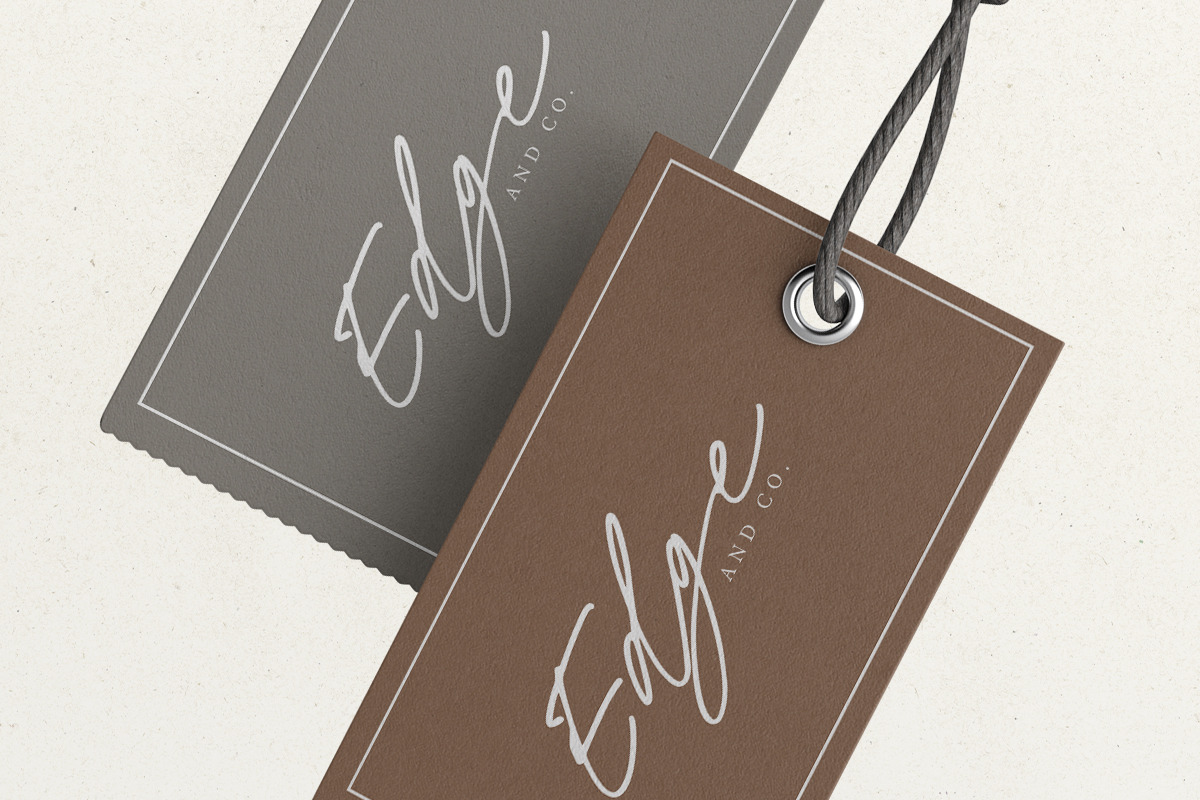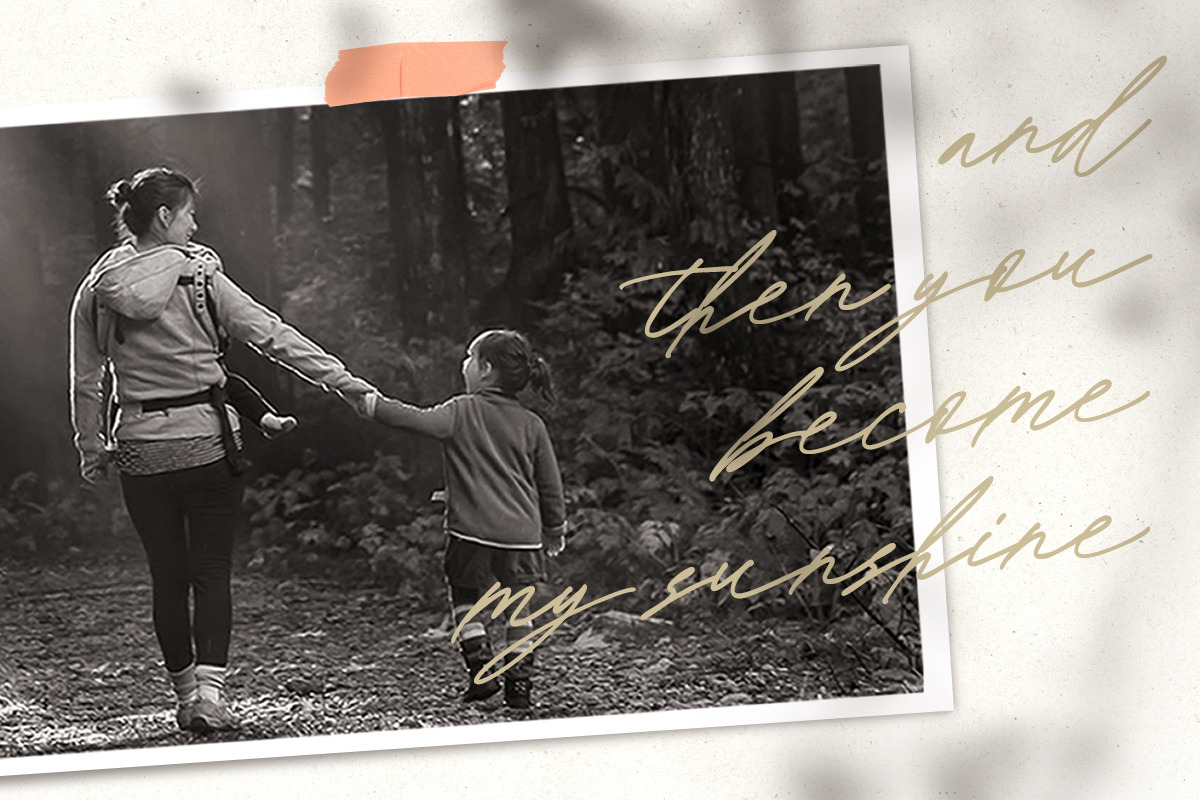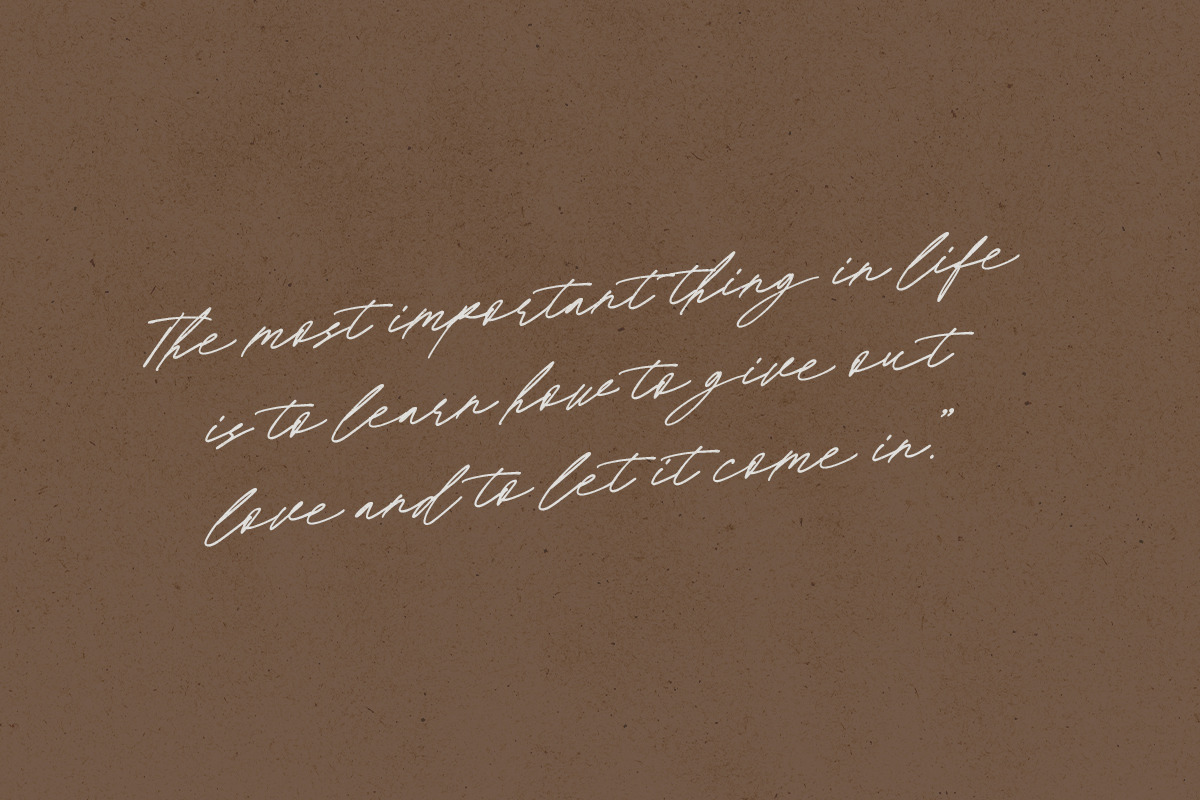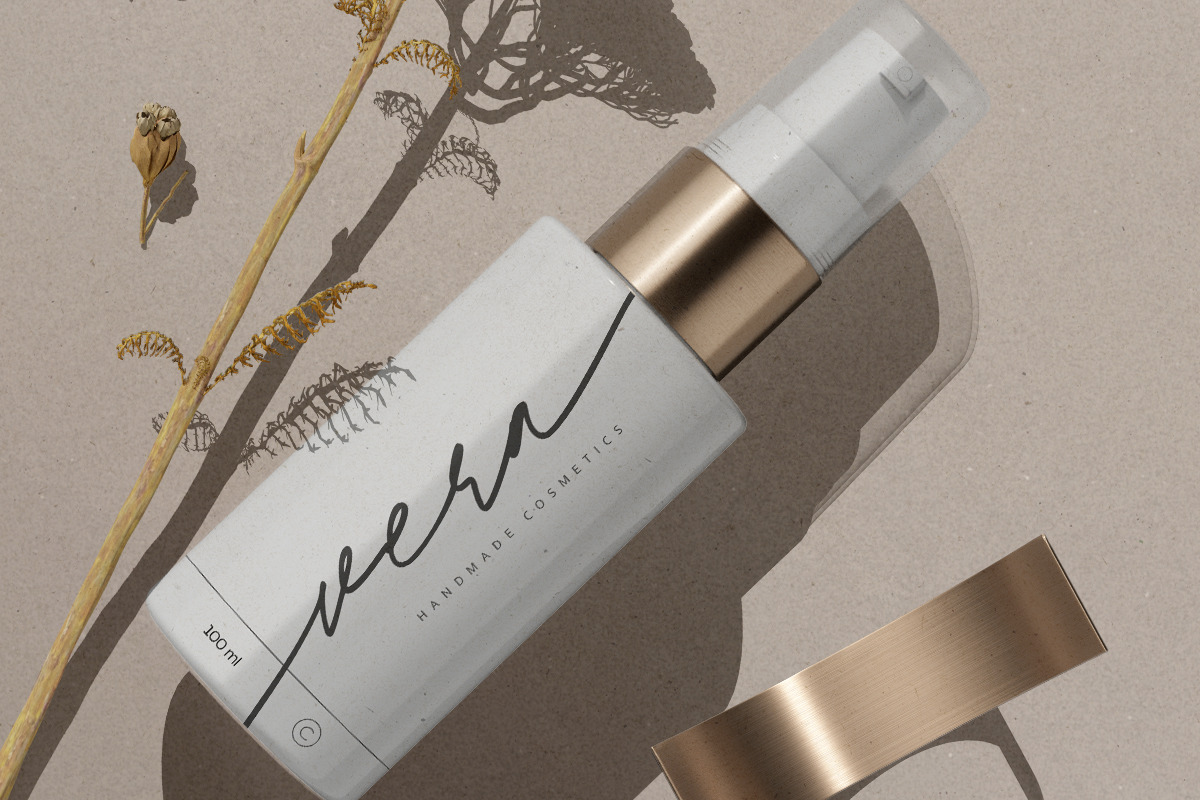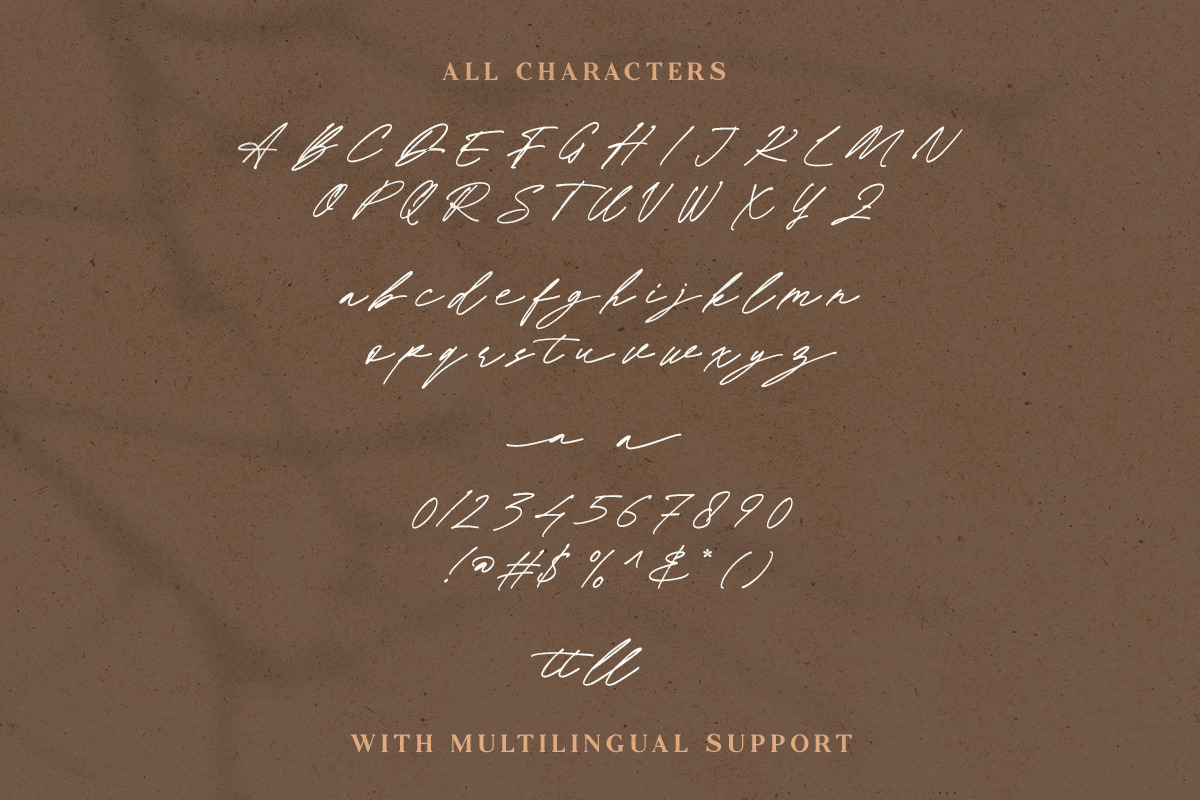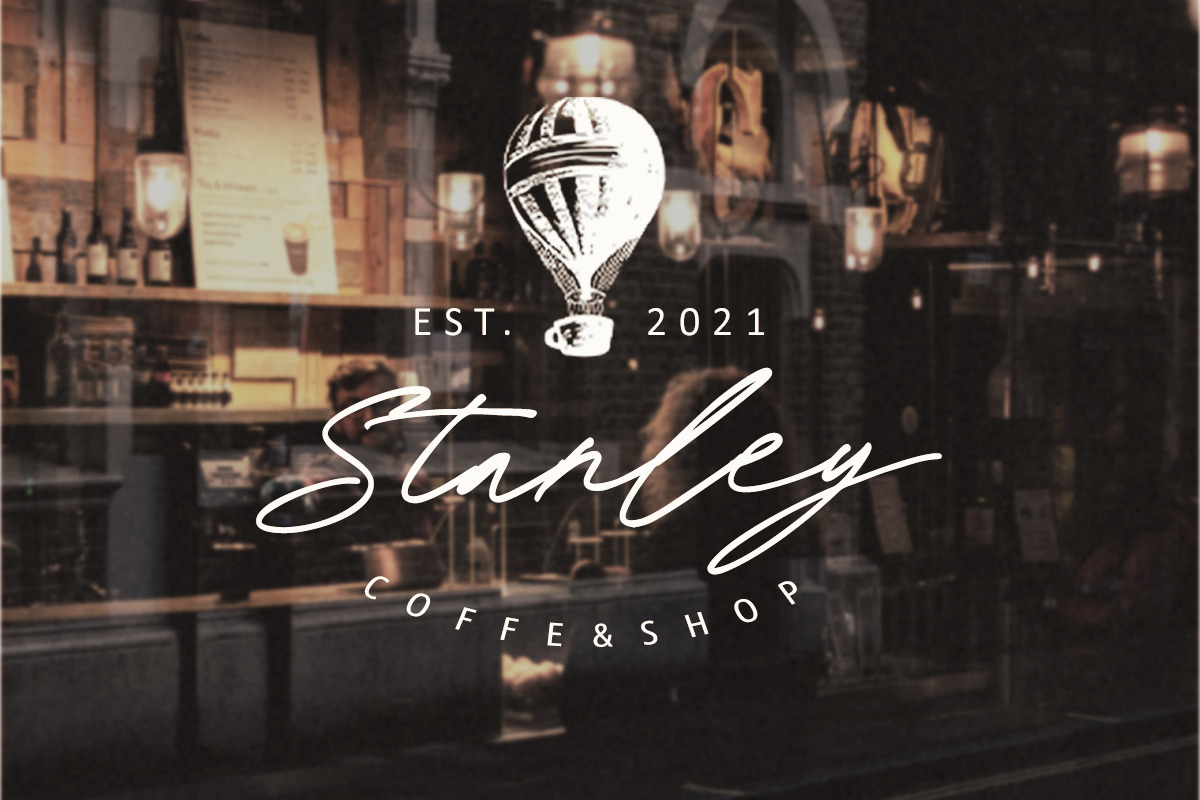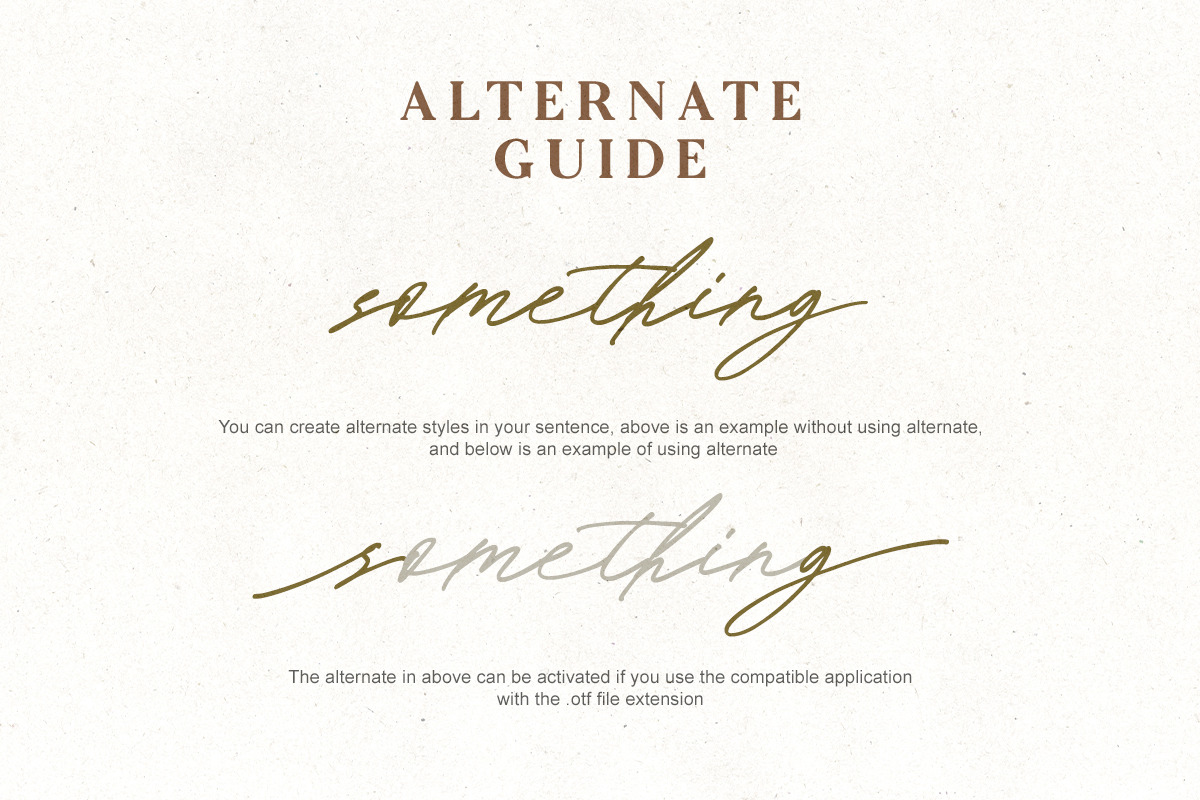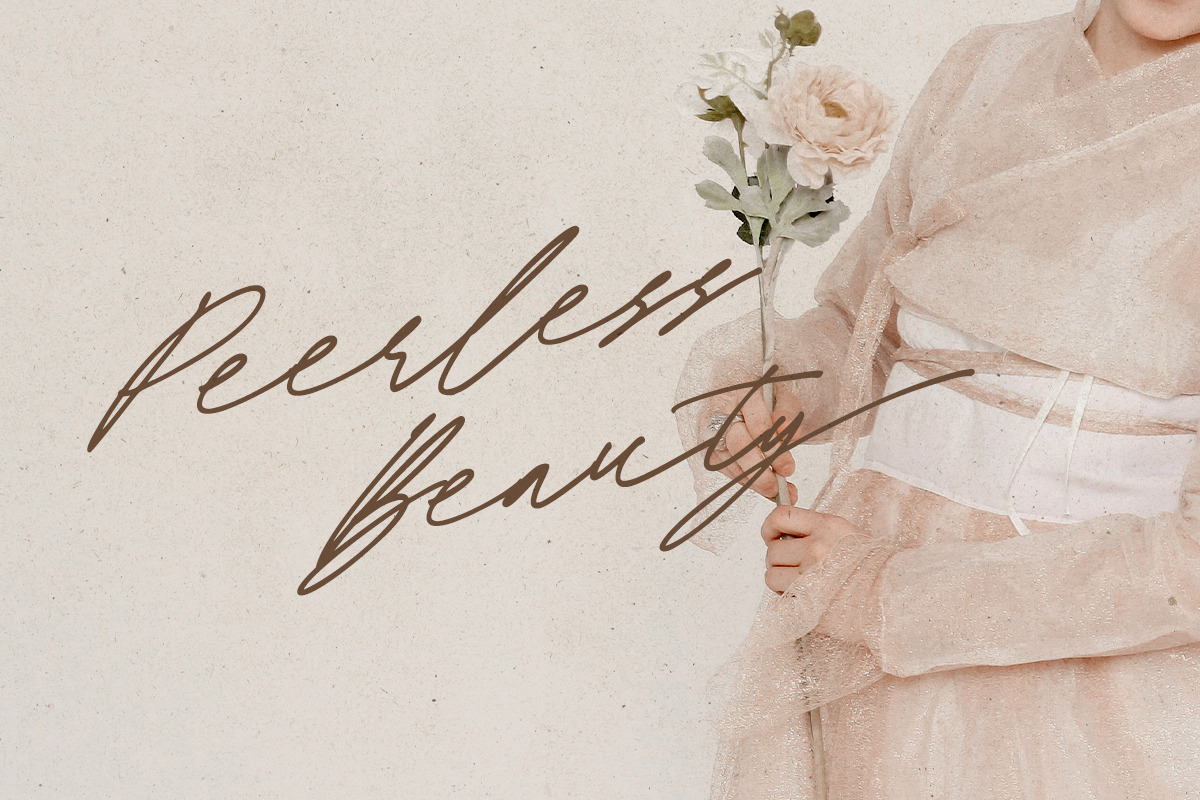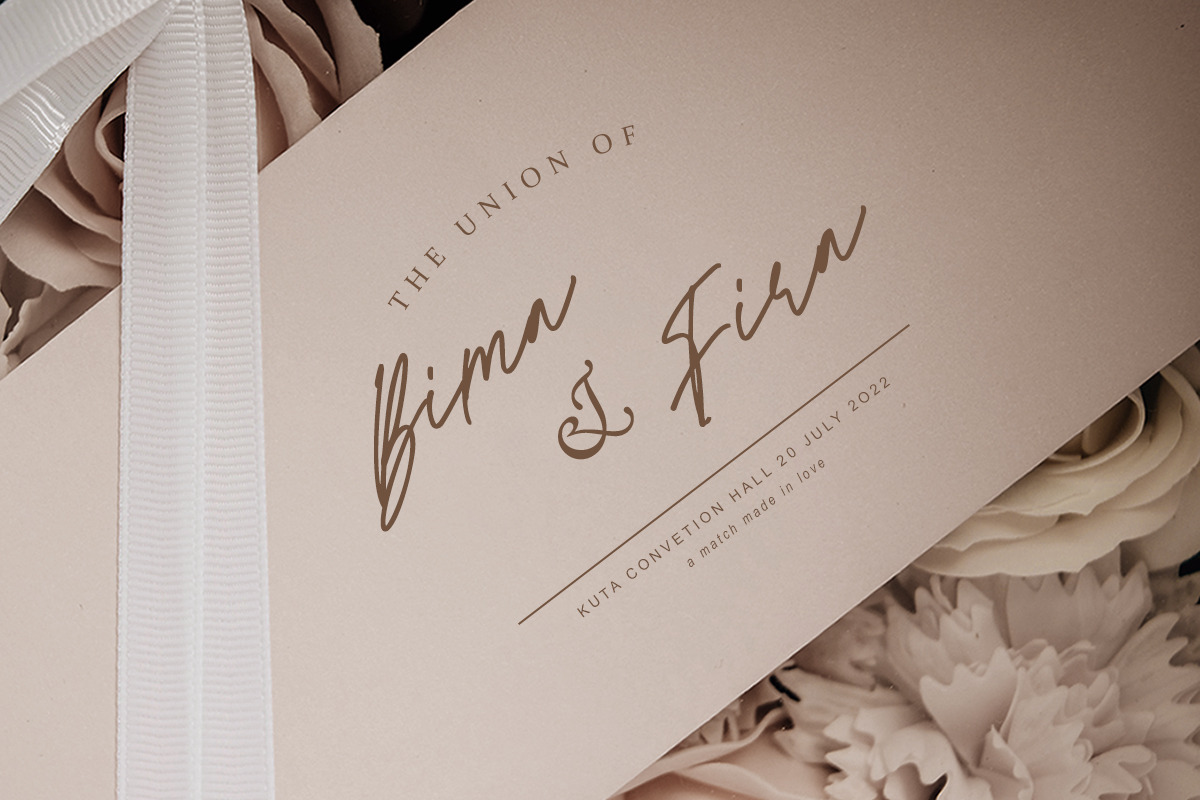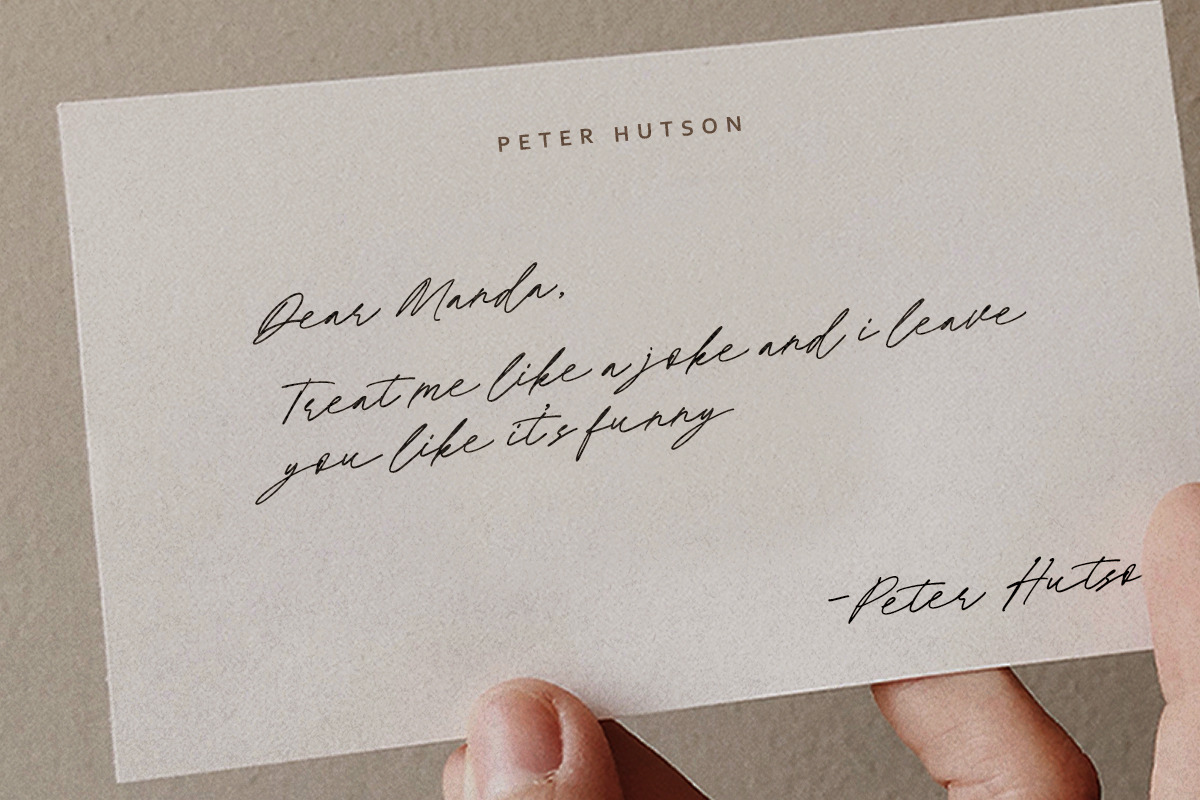
Bella Rose - Minimalist Signature
Bella Rose is minimalist signature script that you can use for any project such as for your own customized signature, logo design, branding, or even your Instagram quotes. You also can use this font for pairing to another font like sans and script. For additional, this font also contains an initial and terminal altenates taht you can access at opentype features in Adobe . This font is also support multi language.